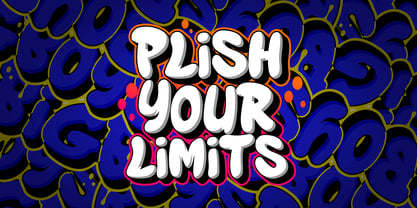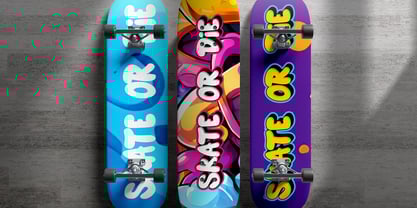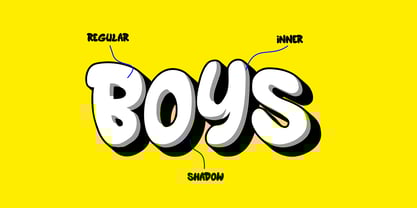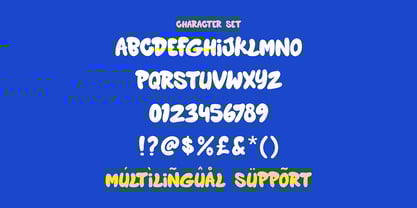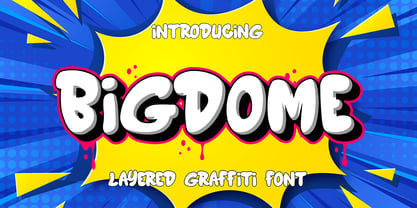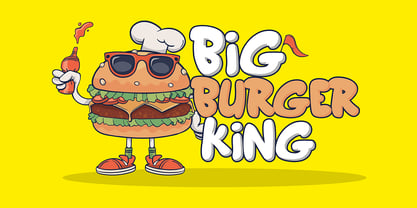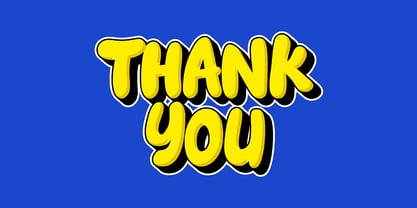
Bigdome
by Sipanji21
The Bigdome Font Family was designed by Sipanji and published by Sipanji21. Bigdome contains 3 styles and family package options. More about this family
Bigdome is a chubby 3D layered graffiti font with a bold and playful street-style vibe. Featuring three dynamic layers—solid, inner shadow, and extrude, this font creates a strong sense of depth and dimension, making it perfect for urban designs, hip-hop posters, streetwear branding, album covers, and graffiti-inspired projects.
With its thick, rounded letters and layered effects, Bigdome brings energy and attitude to any design. Whether you’re aiming for a fun, edgy, or rebellious look, this font adds impact and personality, making your text stand out with a bold street-art aesthetic.
Designers: Sipanji
Foundry: Sipanji21